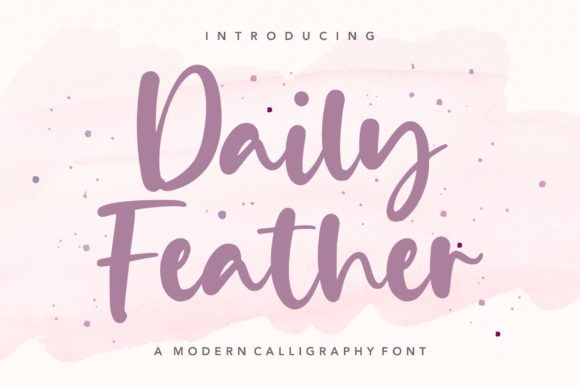
Introducing Daily Feather Font: The Perfect Addition to Your Creative Projects
Are you a designer or crafter looking for a font that can add a touch of personality to your creative projects? Look no further than Daily Feather Font. This relaxed handwritten font is defined by a sweet flow that is sure to make your designs stand out. With its beautiful and well-balanced characters, Daily Feather Font matches a wide pool of designs, making it the perfect addition to your font collection.
The Characteristics of Daily Feather Font
Daily Feather Font is a unique and charming font that is characterized by its relaxed and handwritten feel. The font has a sweet flow that gives it a friendly and approachable vibe, making it perfect for designs that require a personal touch. The characters are beautifully crafted and well-balanced, ensuring that the font is easy to read and looks great in a variety of contexts.
One of the standout features of Daily Feather Font is its versatility. The font matches a wide range of designs, from modern and sleek to vintage and distressed. Whether you’re working on a logo, a poster, or a digital project, Daily Feather Font is sure to complement your design and add a touch of personality.
Why Designers and Crafters Love Daily Feather Font
Designers and crafters love Daily Feather Font for many reasons. Here are just a few:
- Unique and eye-catching: Daily Feather Font is a one-of-a-kind font that is sure to grab attention. Its unique and eye-catching design makes it perfect for designs that require a bit of personality.
- Easy to read: Despite its handwritten feel, Daily Feather Font is easy to read and understand. This makes it perfect for designs that require a clear and concise message.
- Versatile: Daily Feather Font matches a wide range of designs, making it a versatile addition to any font collection.
- High-quality: Daily Feather Font is a high-quality font that is designed to look great in a variety of contexts. Whether you’re working on a digital project or a print design, Daily Feather Font is sure to deliver.
How to Use Daily Feather Font in Your Designs
Using Daily Feather Font in your designs is easy. Here are a few tips to get you started:
- Pair it with bold fonts: Daily Feather Font looks great when paired with bold fonts. Try pairing it with a sans-serif font for a modern and sleek look.
- Use it for headings: Daily Feather Font is perfect for headings and titles. Use it to add a touch of personality to your design.
- Experiment with colors: Daily Feather Font looks great in a variety of colors. Experiment with different colors to find the one that works best for your design.
Daily Feather Font is a unique and charming font that is perfect for designers and crafters looking to add a touch of personality to their creative projects. With its sweet flow and well-balanced characters, Daily Feather Font matches a wide pool of designs and is sure to make your designs stand out. Whether you’re working on a logo, a poster, or a digital project, Daily Feather Font is the perfect addition to your font collection.